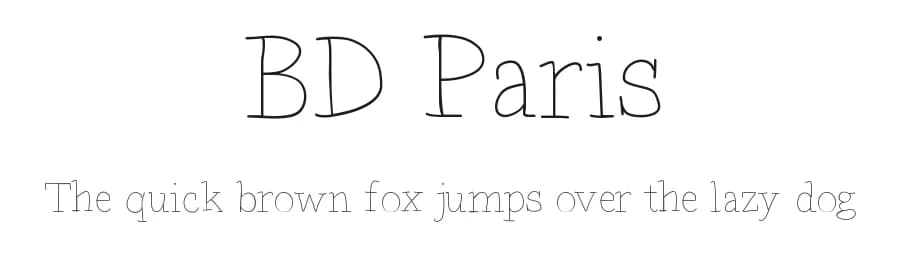
About BD Paris Font
BD Paris is a script & handwritten font designed by Britt Douglas. It includes 56 glyphs, a medium weight, TTF (TrueType) format, and 89 languages. BD Paris is free to download; check the license details on this page before commercial use. Script & handwritten fonts like BD Paris work best for wedding invitations, greeting cards, signatures, and elegant branding.
BD Paris Font is a script font that shines as a display or heading face. Pair it with a clean sans-serif or serif font for body text β the contrast creates a clear hierarchy while the two styles stay balanced and easy to read.